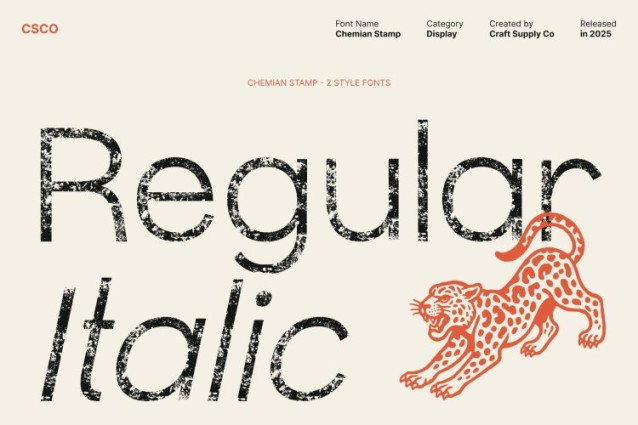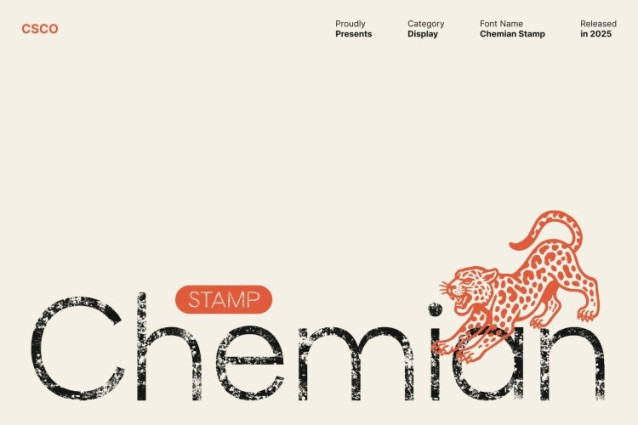
Chemian Stamp Font
Chemian Stamp Font This is a grotesque sans serif display font designed with clean, precise letterforms that convey a professional and contemporary look. Its structured shapes provide clarity and impact, making it ideal for designers who want a font that communicates strength, modernity, and polished aesthetics in their projects.
Balanced Structure with Artistic Flair
The font’s geometric forms and sharp proportions create a harmonious balance between strict structure and subtle artistic individuality. Each character is carefully crafted to ensure readability while offering a distinctive personality. This makes this font perfect for posters, editorial layouts, and bold branding, where visual authority and style are essential.
Stamped Texture for Vintage Character
Enhanced with a stamp effect, this font gains tactile depth and handcrafted charm. The textured finish introduces vintage warmth and expressive irregularities, transforming precise geometric shapes into a font that feels both professional and uniquely expressive. This effect bridges modern design with nostalgic character, giving every project a visually compelling touch.
Ideal for Branding, Posters, and Editorial Projects
This font excels in branding, packaging, posters, editorial titles, and creative display designs. Its precise grotesque structure ensures clarity and professionalism, while the stamped texture adds personality and vintage appeal.